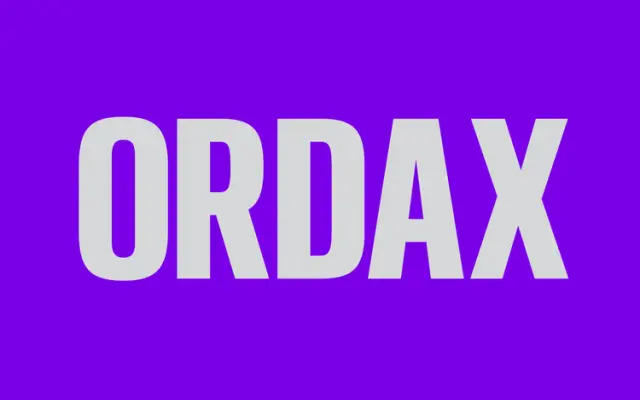
A condensed display sans in four weights with matching italics, built for headlines where space economy and a plain, authoritative tone are priorities.
Eight fonts across four weights from Light to Bold, each with a matching italic, and 447 characters per style with OpenType features. The narrow proportions suit tight column measures and large-scale display work where a clean, no-frills appearance is required. Positioned as a reliable workhorse for projects that want clarity and economy over expressive personality.
Described explicitly as a condensed display sans-serif; its narrow proportions and weight range place it firmly in the display grotesque tradition designed for space-efficient headlines.